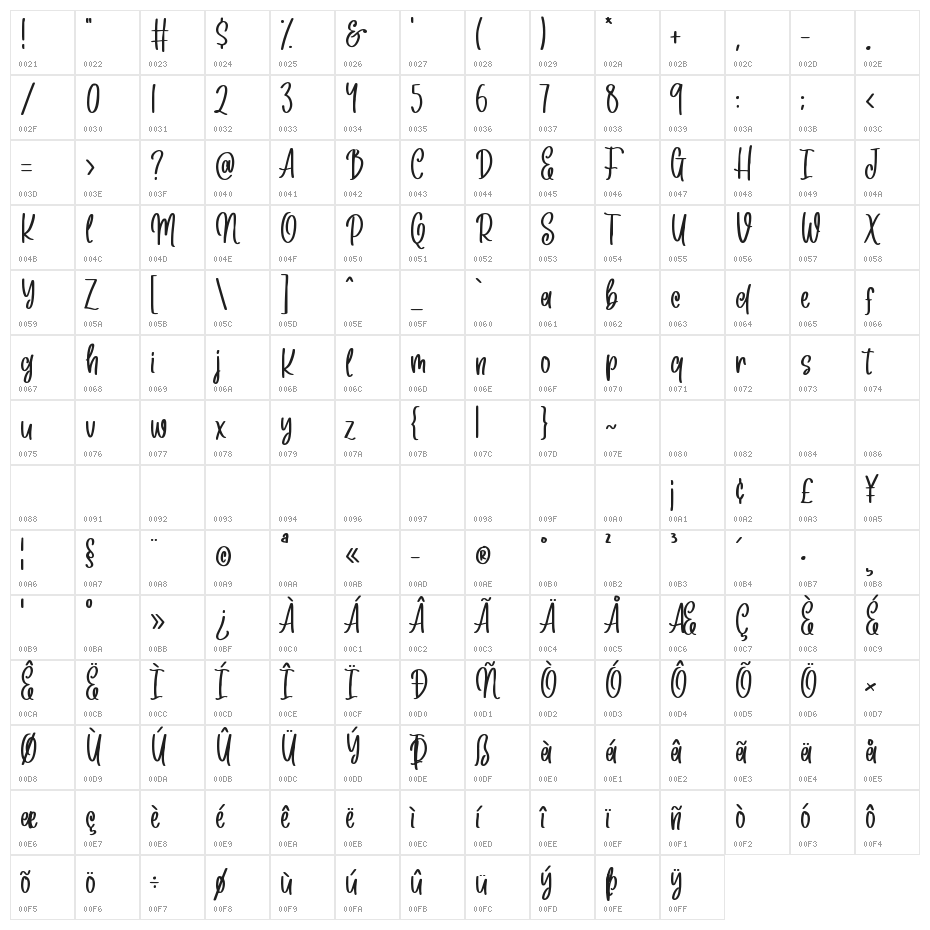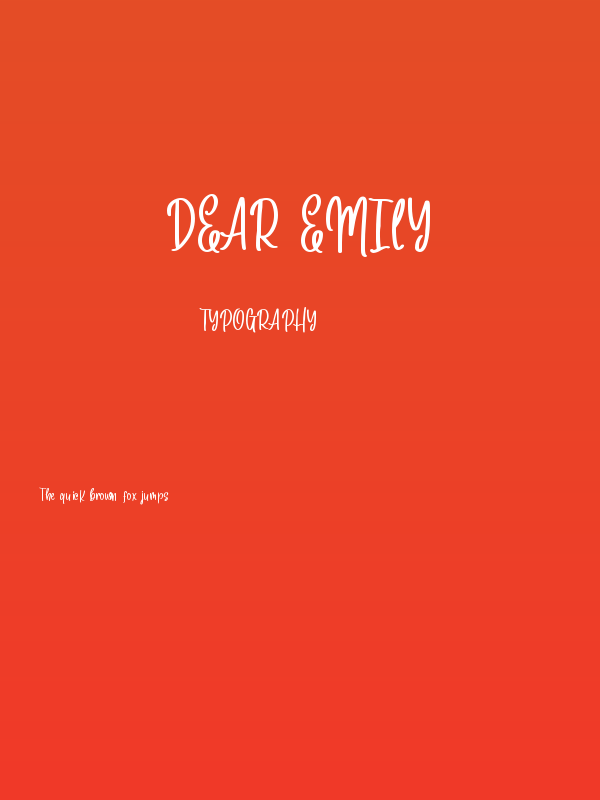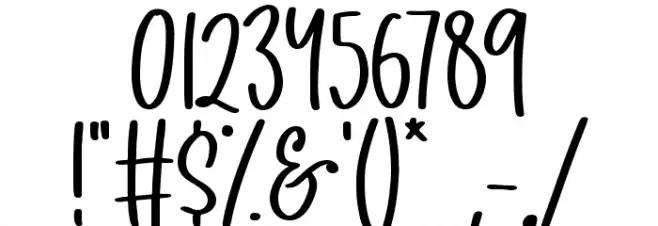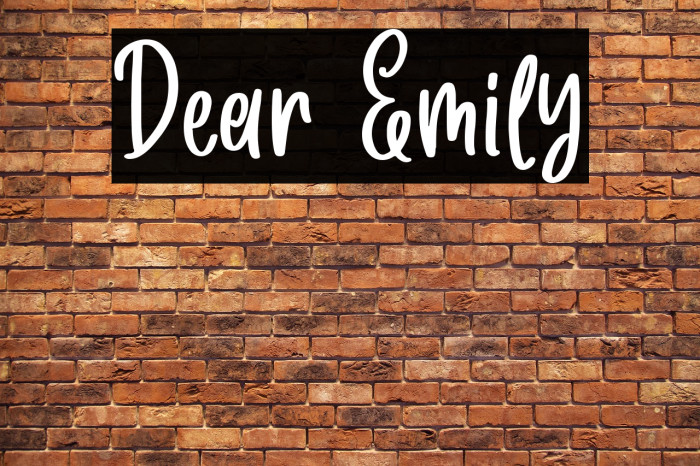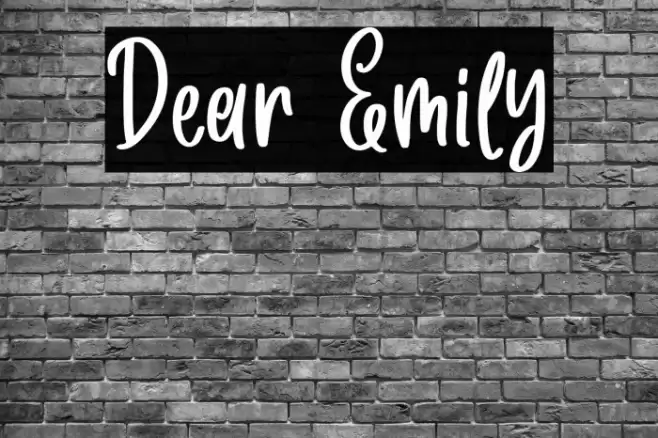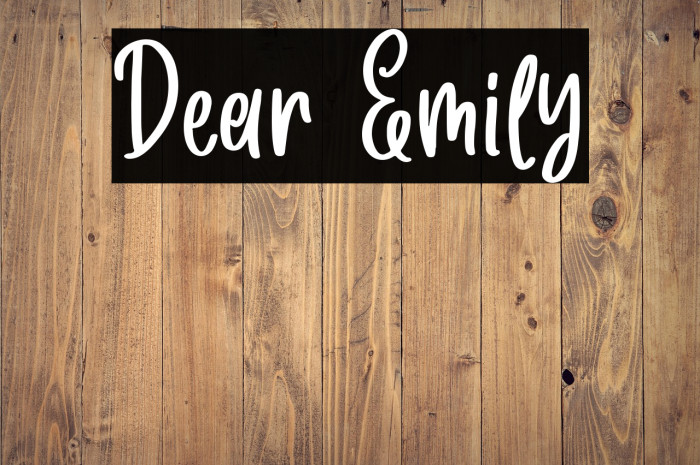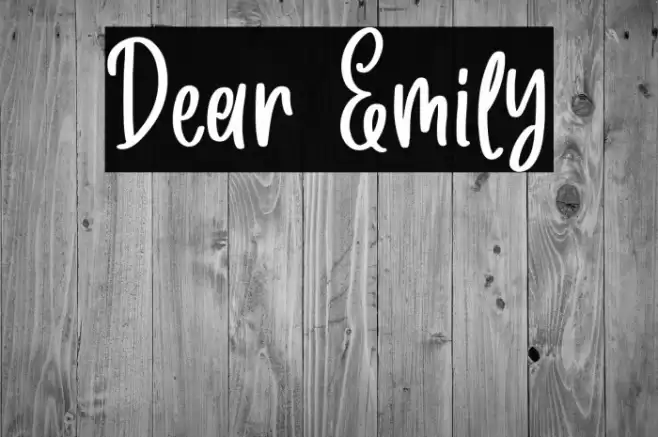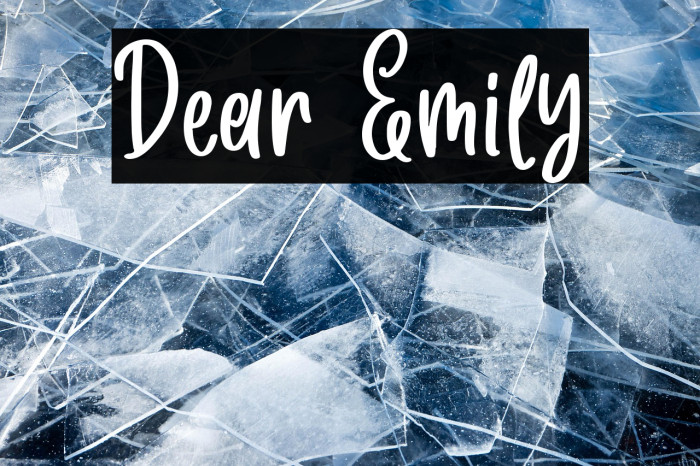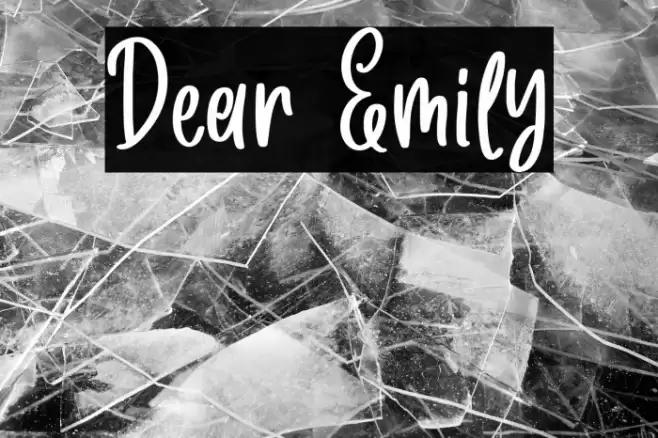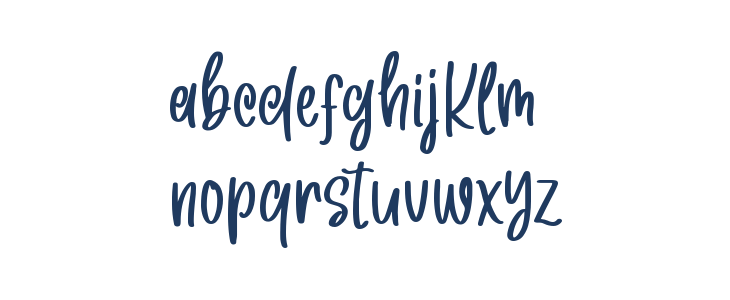
Dear Emily Font
Dear Emily Description
This font features a playful and whimsical handwritten style, characterized by its flowing, cursive-like strokes. The letters have a casual and friendly appearance, with a slight slant that adds to their dynamic feel. The uppercase letters are bold and prominent, while the lowercase letters maintain a consistent flow, enhancing readability. The numbers and special characters are crafted with the same playful flair, ensuring a cohesive look across all text. This font's unique charm makes it suitable for projects that require a personal touch.
| Proposed Projects | Ideal for greeting cards, invitations, personal branding, and creative projects that require a personal and approachable feel. |